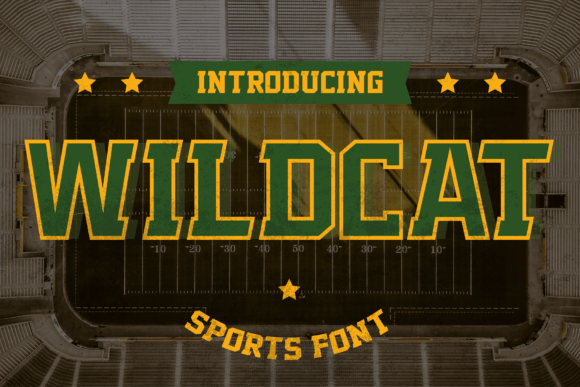
Looking for the perfect font for your athletic-themed project? Look no further than Wildcat, the best font for digital display available on the market today. This serif font family, created by the experts at HipFonts, is the ideal choice for all your sports-related design needs.
Wildcat's bold and powerful aesthetic makes it the perfect choice for basketball, football, softball, baseball, soccer, and hockey-related projects. Whether you're designing logotypes, posters, apparel, magazines, stationery, headlines, labels, badges, or anything in between, Wildcat is the font you need to make your work stand out.
But Wildcat isn't just for athletes and sports enthusiasts. Its timeless and classic design makes it versatile enough for use in a wide range of other projects as well. Whether you're designing a website, creating marketing materials, or working on any other type of project, Wildcat is sure to make your work pop.
So why wait? Give your designs a bold and impactful look today with Wildcat, the best font for digital display available on the market today. With its eye-catching design and versatile applications, Wildcat is sure to become your go-to font for all your design needs.